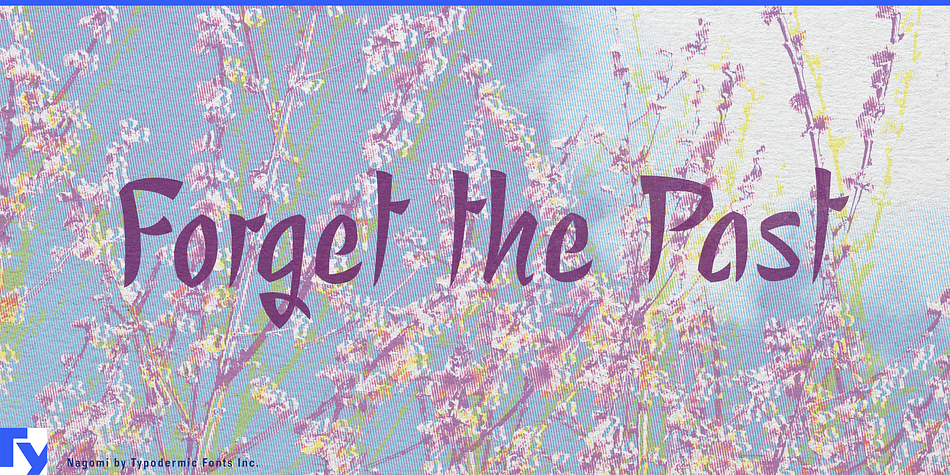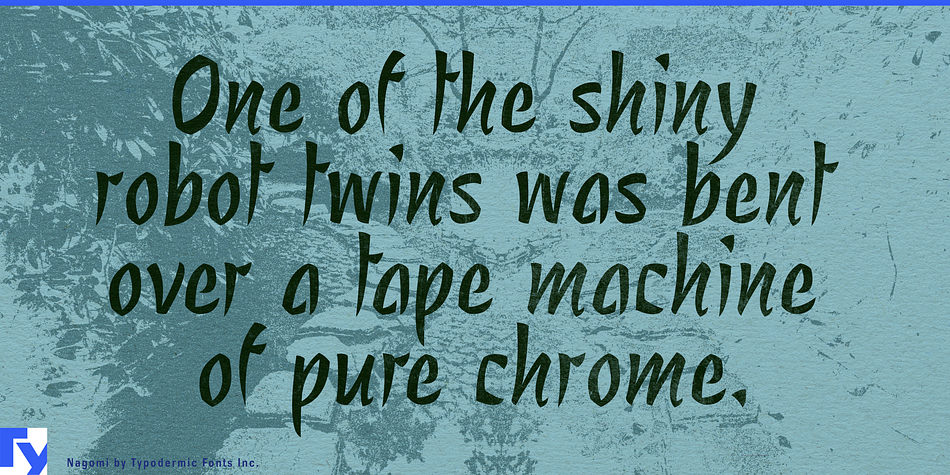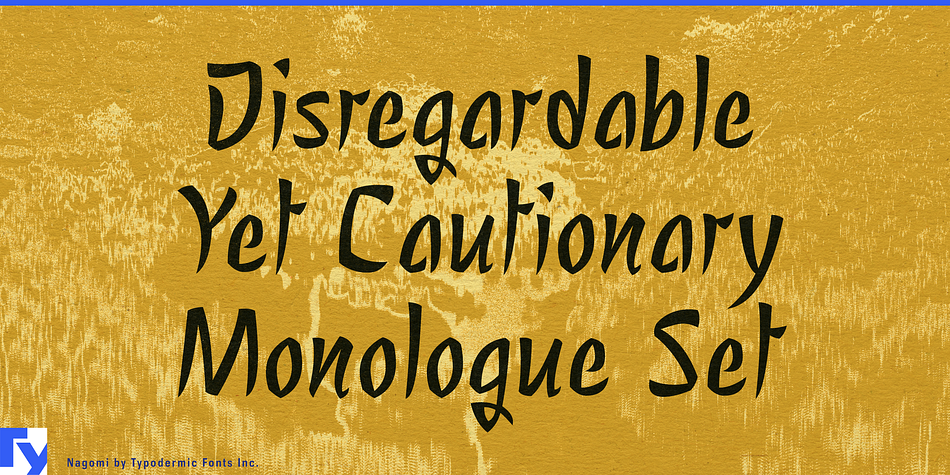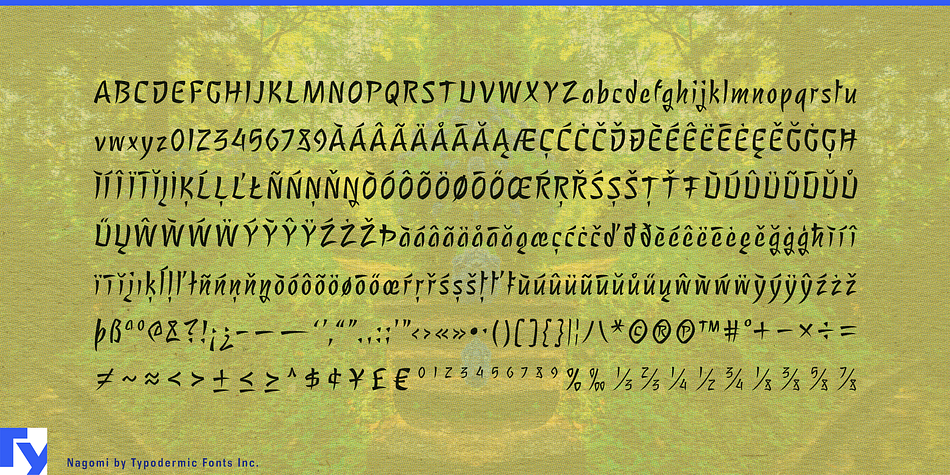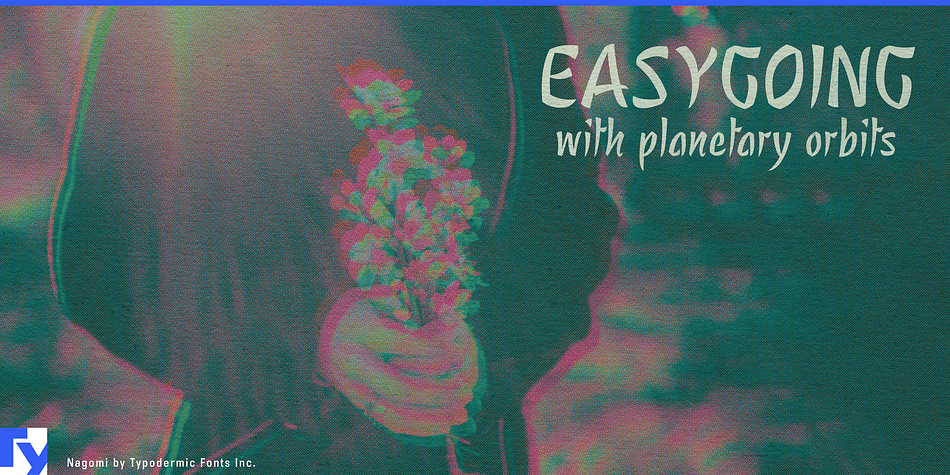
Nagomi is a novelty font published by Typodermic Fonts Inc.
Nagomi is a brush display typeface with a Japanese aesthetic. It offers a sense of tranquility and serenity. Most Latin-based European writing systems are supported, including the following languages. Afaan Oromo, Afar, Afrikaans, Albanian, Alsatian, Aromanian, Aymara, Bashkir (Latin), Basque, Belarusian (Latin), Bemba, Bikol, Bosnian, Breton, Cape Verdean, Creole, Catalan, Cebuano, Chamorro, Chavacano, Chichewa, Crimean Tatar (Latin), Croatian, Czech, Danish, Dawan, Dholuo, Dutch, English, Estonian, Faroese, Fijian, Filipino, Finnish, French, Frisian, Friulian, Gagauz (Latin), Galician, Ganda, Genoese, German, Greenlandic, Guadeloupean Creole, Haitian Creole, Hawaiian, Hiligaynon, Hungarian, Icelandic, Ilocano, Indonesian, Irish, Italian, Jamaican, Kaqchikel, Karakalpak (Latin), Kashubian, Kikongo, Kinyarwanda, Kirundi, Kurdish (Latin), Latvian, Lithuanian, Lombard, Low Saxon, Luxembourgish, Maasai, Makhuwa, Malay, Maltese, Māori, Moldovan, Montenegrin, Ndebele, Neapolitan, Norwegian, Novial, Occitan, Ossetian (Latin), Papiamento, Piedmontese, Polish, Portuguese, Quechua, Rarotongan, Romanian, Romansh, Sami, Sango, Saramaccan, Sardinian, Scottish Gaelic, Serbian (Latin), Shona, Sicilian, Silesian, Slovak, Slovenian, Somali, Sorbian, Sotho, Spanish, Swahili, Swazi, Swedish, Tagalog, Tahitian, Tetum, Tongan, Tshiluba, Tsonga, Tswana, Tumbuka, Turkish, Turkmen (Latin), Tuvaluan, Uzbek (Latin), Venetian, Vepsian, Võro, Walloon, Waray-Waray, Wayuu, Welsh, Wolof, Xhosa, Yapese, Zapotec Zulu and Zuni.